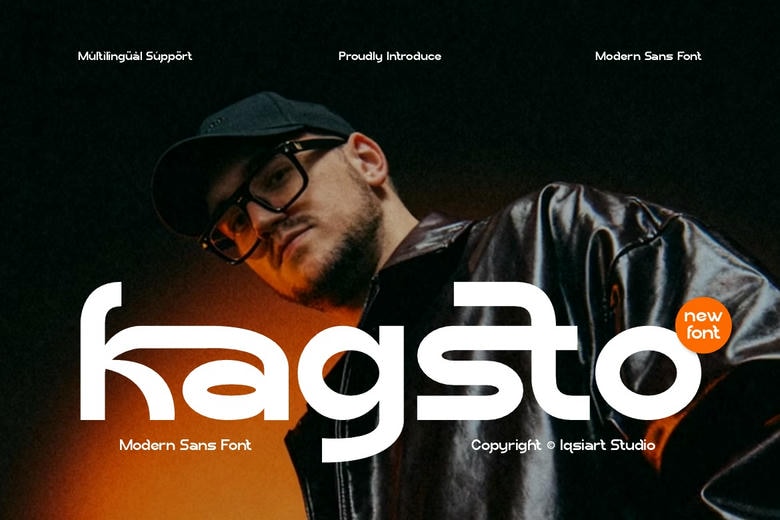
Kagsto Font
Kagsto is a modern display sans typeface made for creative projects. Its bold, wide lowercase letters feature smooth curves, open stencil breaks, and a strong, structured baseline. Kagsto blends the look of techwear branding with the energy of electronic music zines.
Kagsto’s bold and urban style makes it a great choice for independent lifestyle logos, electronic music festival posters, and striking social media titles that need a sleek touch.
Kagsto Sans Serif Font